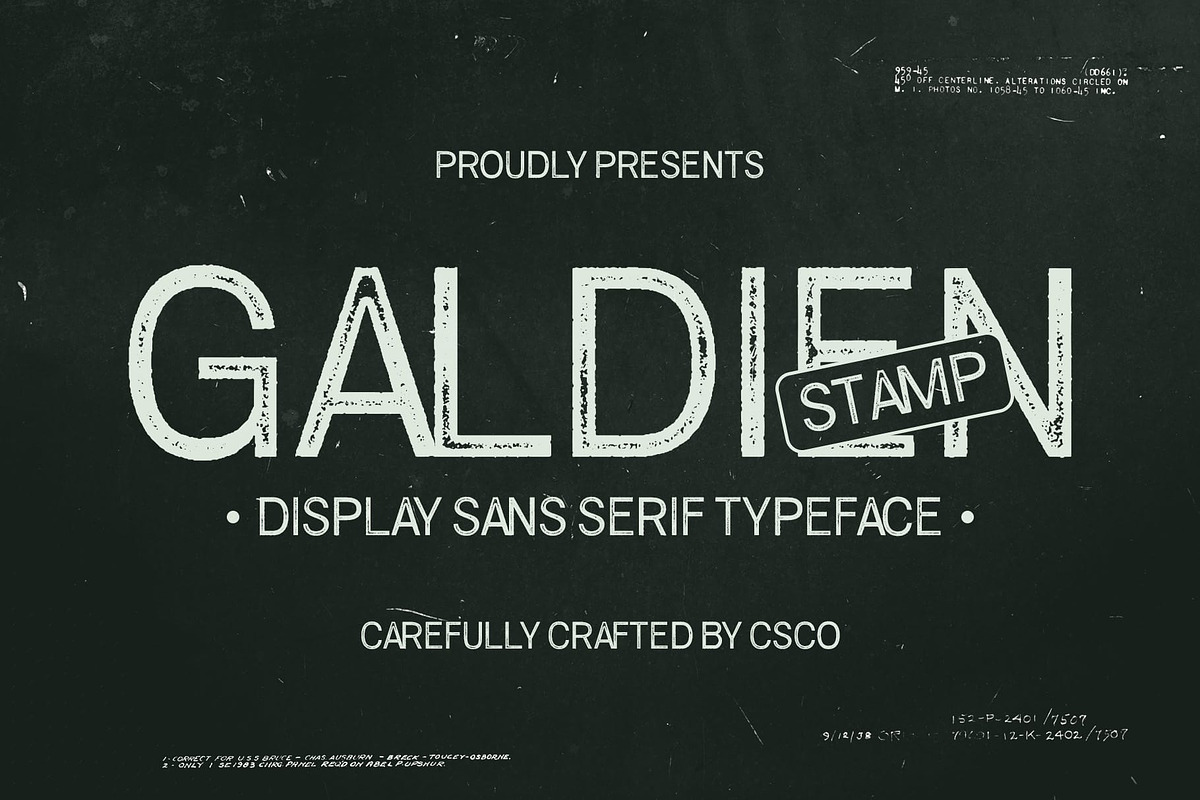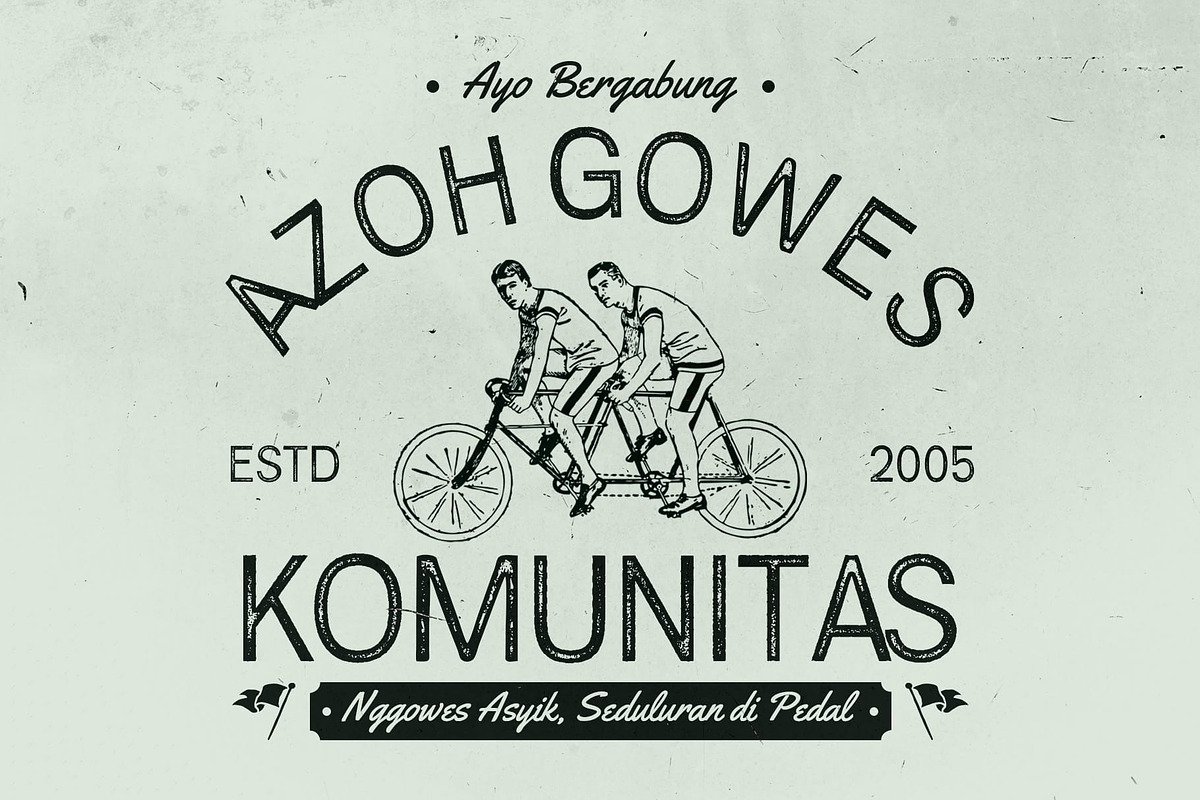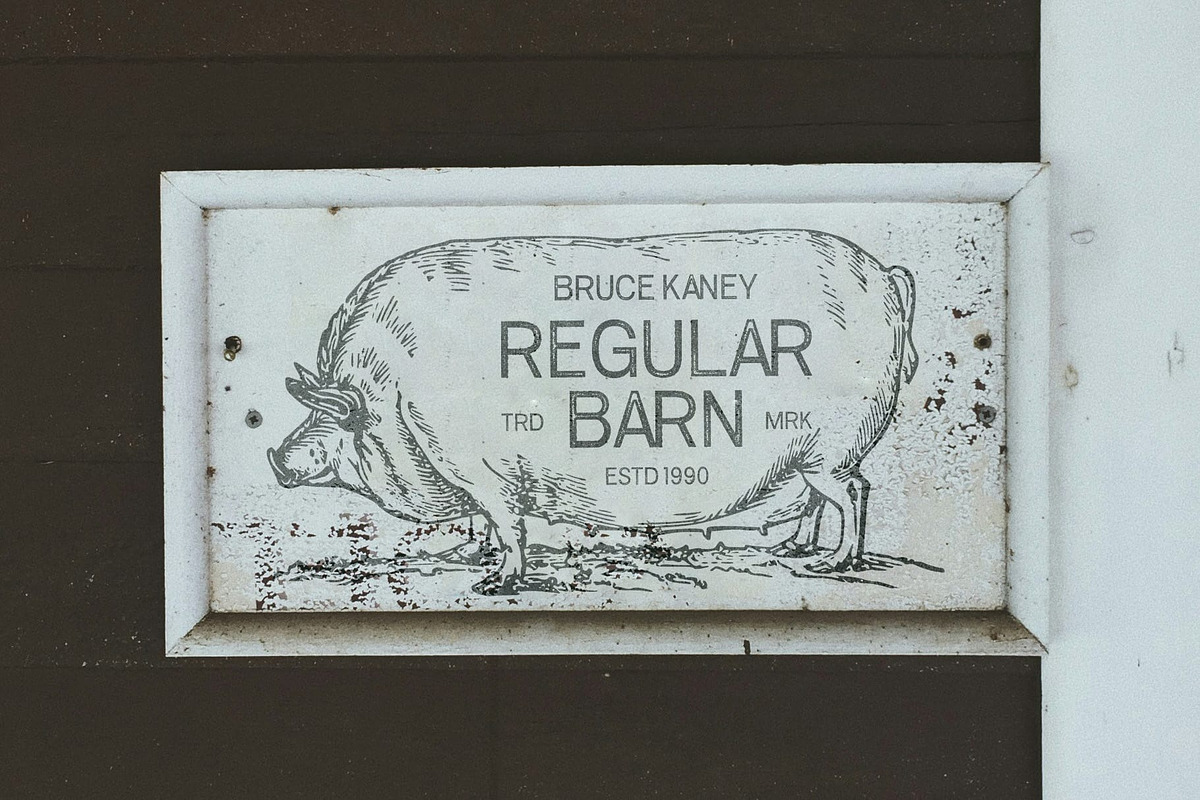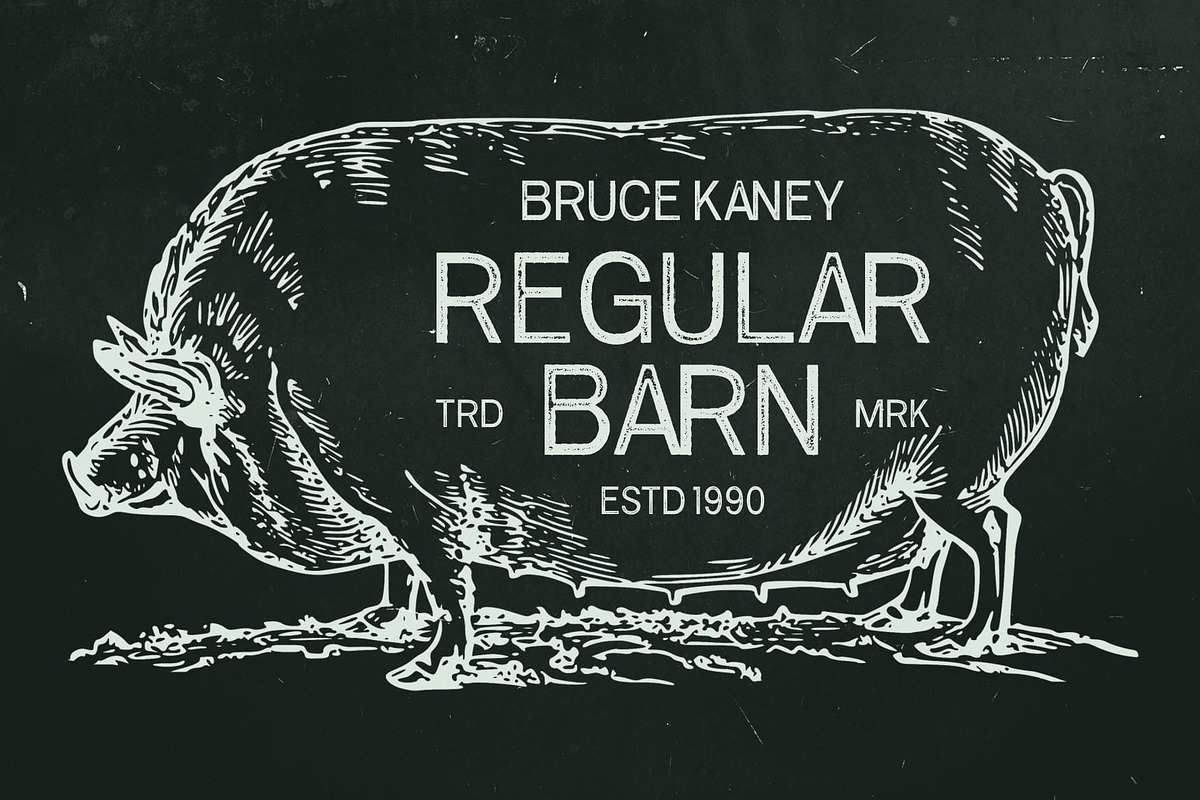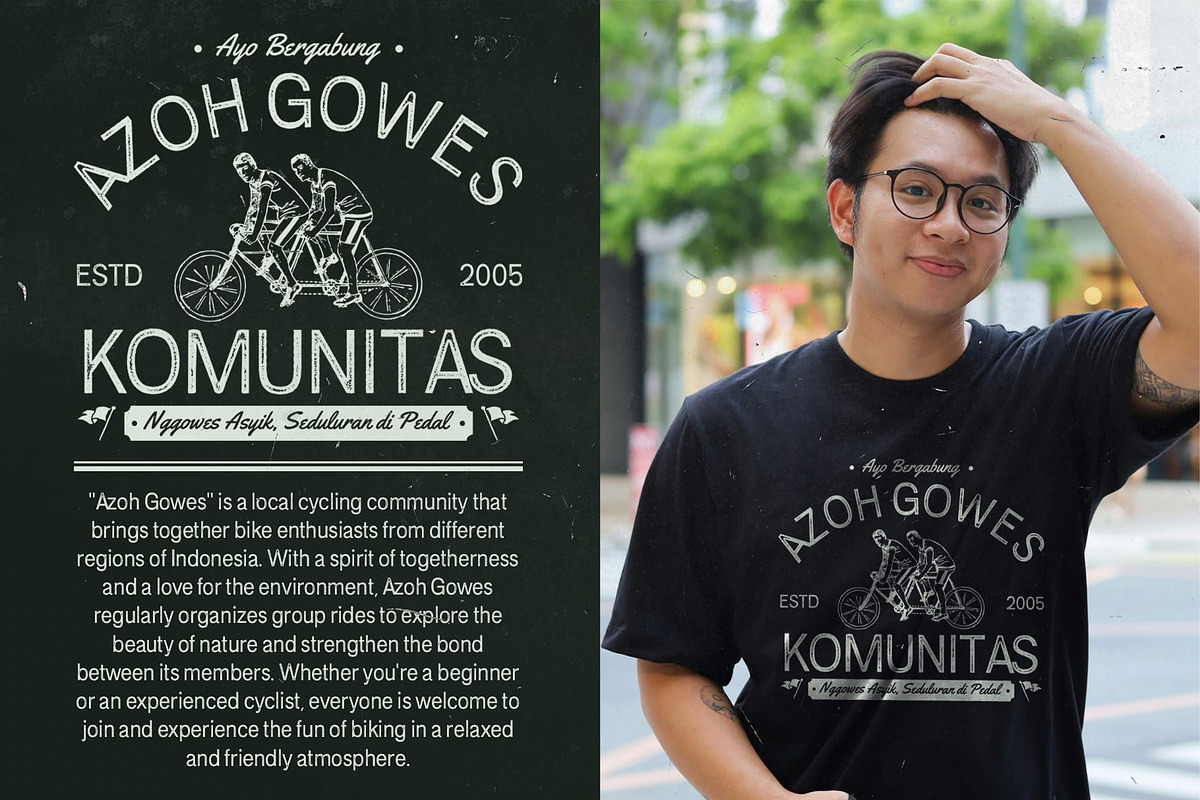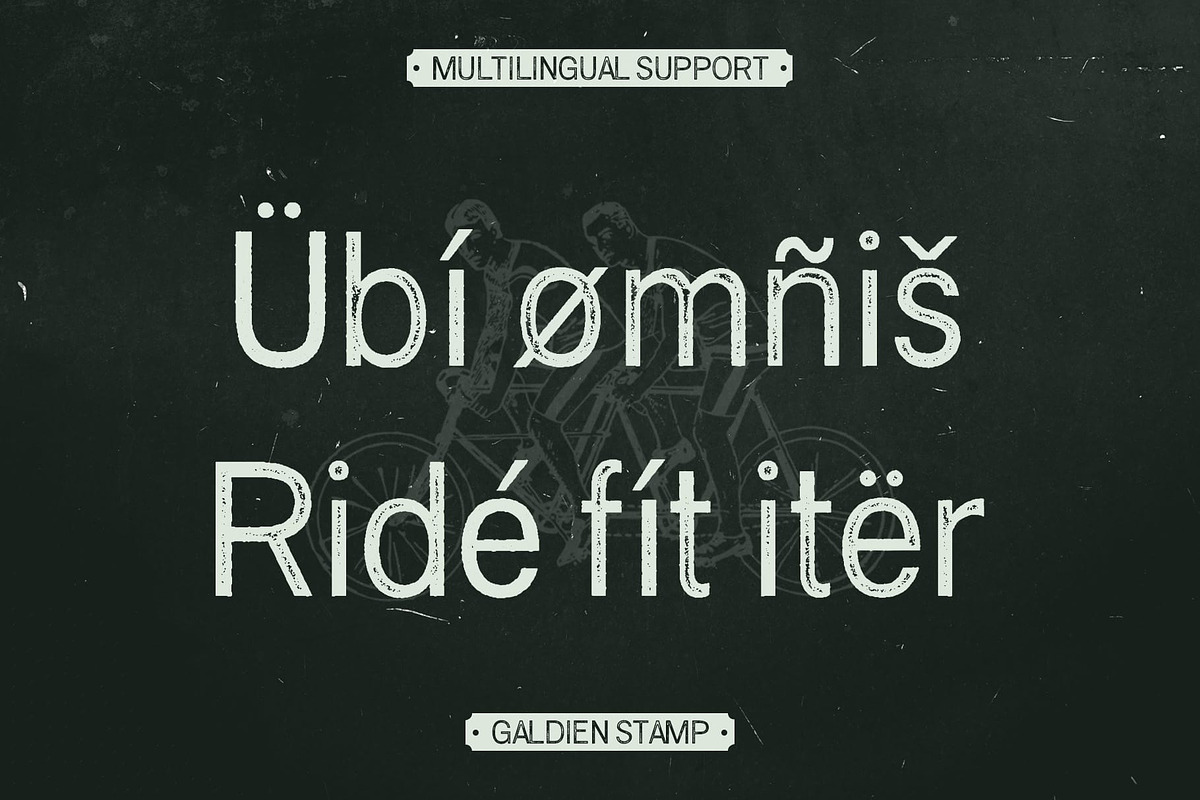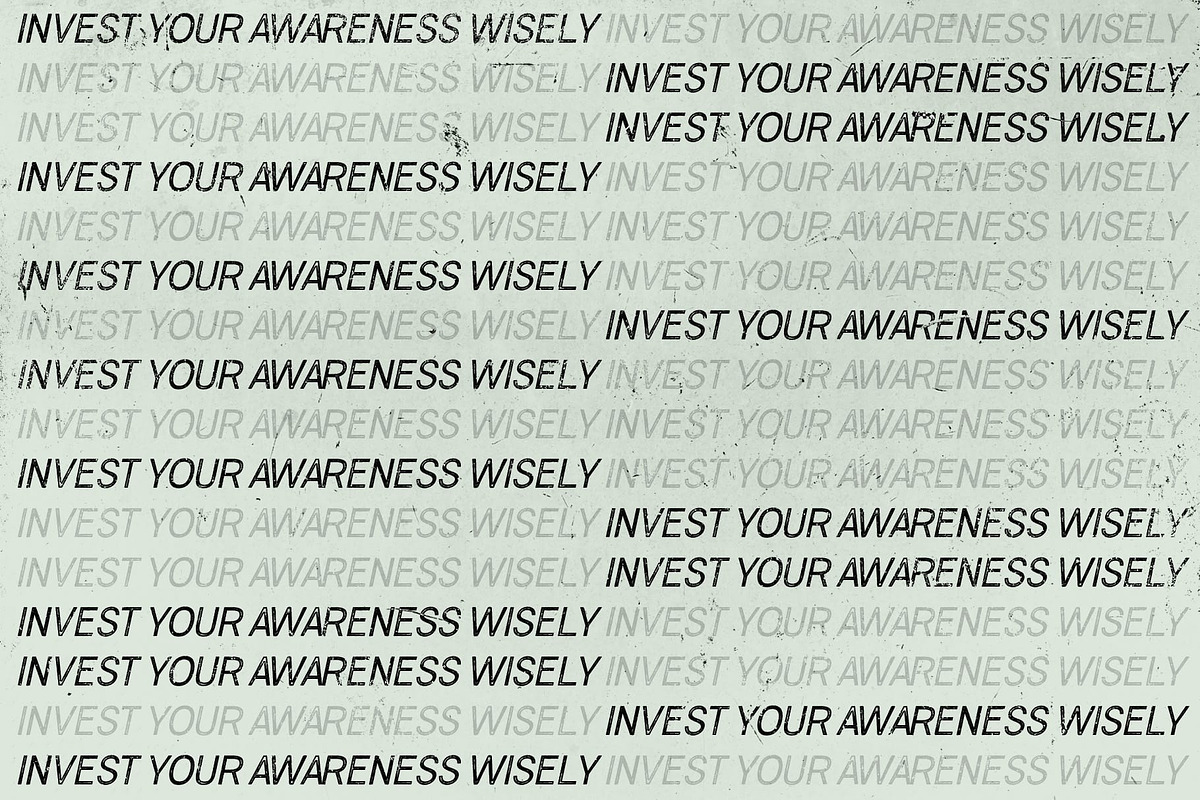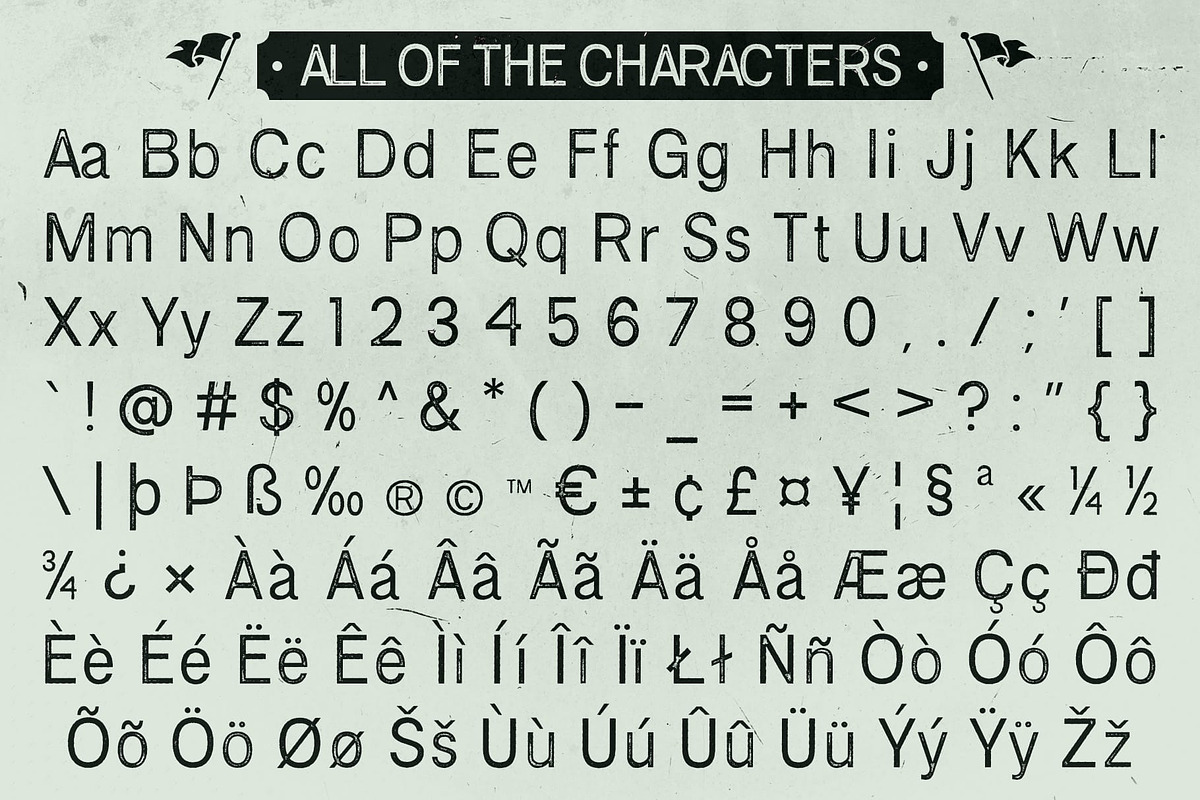
Galdien Stamp
Galdien Stamp Font – Modern Sophistication Meets Vintage Charm
Grotesque and Minimalist Shapes Galdien Stamp is a modern sans serif font featuring grotesque, minimalist, and contemporary shapes that exude sleekness and refinement. The clean lines give it a bold yet simple aesthetic, perfect for designs that require clarity and professionalism. This font’s structure embodies the essence of modern design, making it a versatile choice for various creative applications.
Textured Stamp Effect What sets Galdien Stamp apart is its unique textured stamp effect. This adds a rugged, vintage character to the otherwise clean and contemporary forms, creating a striking contrast. The stamp effect brings a tactile quality to the font, making it feel grounded and authentic while maintaining a polished, sophisticated edge.
Ideal for Branding and Packaging Galdien Stamp is perfect for projects that aim to combine modern sophistication with vintage charm. Whether it’s branding, packaging, or poster designs, this font delivers a strong, memorable presence. Its blend of clean lines and textured effects makes it an ideal choice for creating a bold and timeless visual identity.